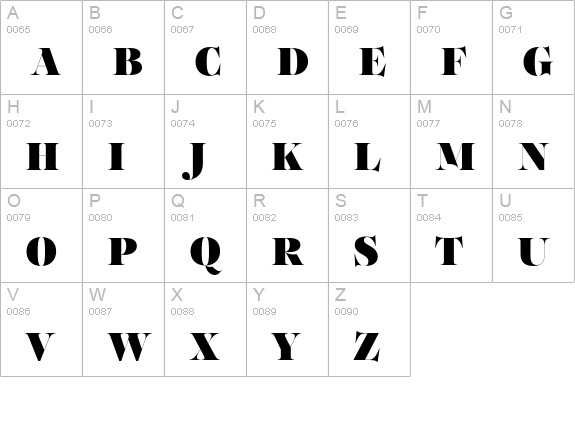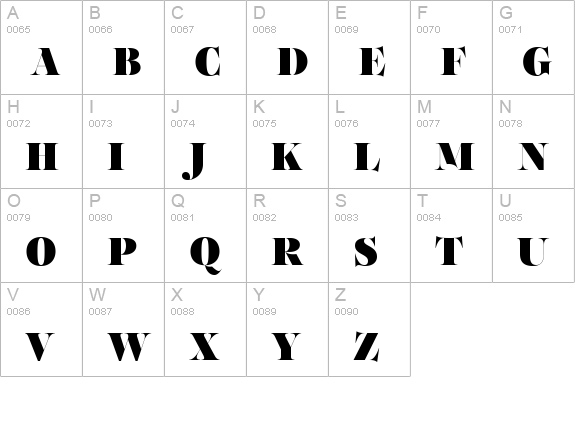
PFRegalFinessePro-UBlack is a stunning and sophisticated font that exudes elegance and refinement. With its bold weight and impeccable design, this font is perfect for making a powerful statement in any project. Its sleek and modern appearance makes it ideal for titles, headlines, and branding materials. What sets PFRegalFinessePro-UBlack apart is not only its striking aesthetics but also the fact that it is available for free download at FontsMarket.com. This means you can easily access this premium font without any cost, making it a valuable addition to your font collection. Don't miss out on the opportunity to elevate your designs with PFRegalFinessePro-UBlack's timeless appeal and sophistication.